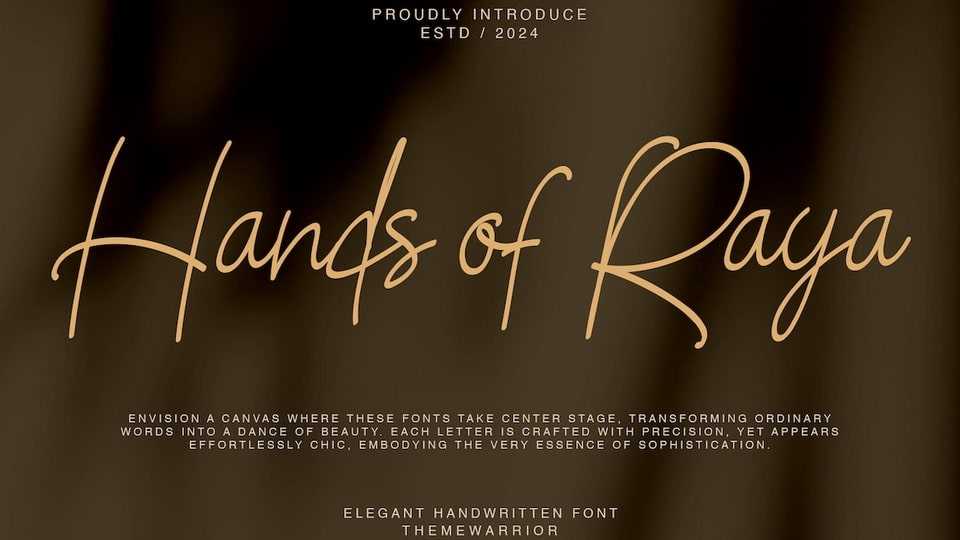
Download Hands of Raya font, a captivating script that embodies the essence of handwritten elegance. With its fluid strokes and graceful curves, Hands of Raya adds a personal touch to any project.